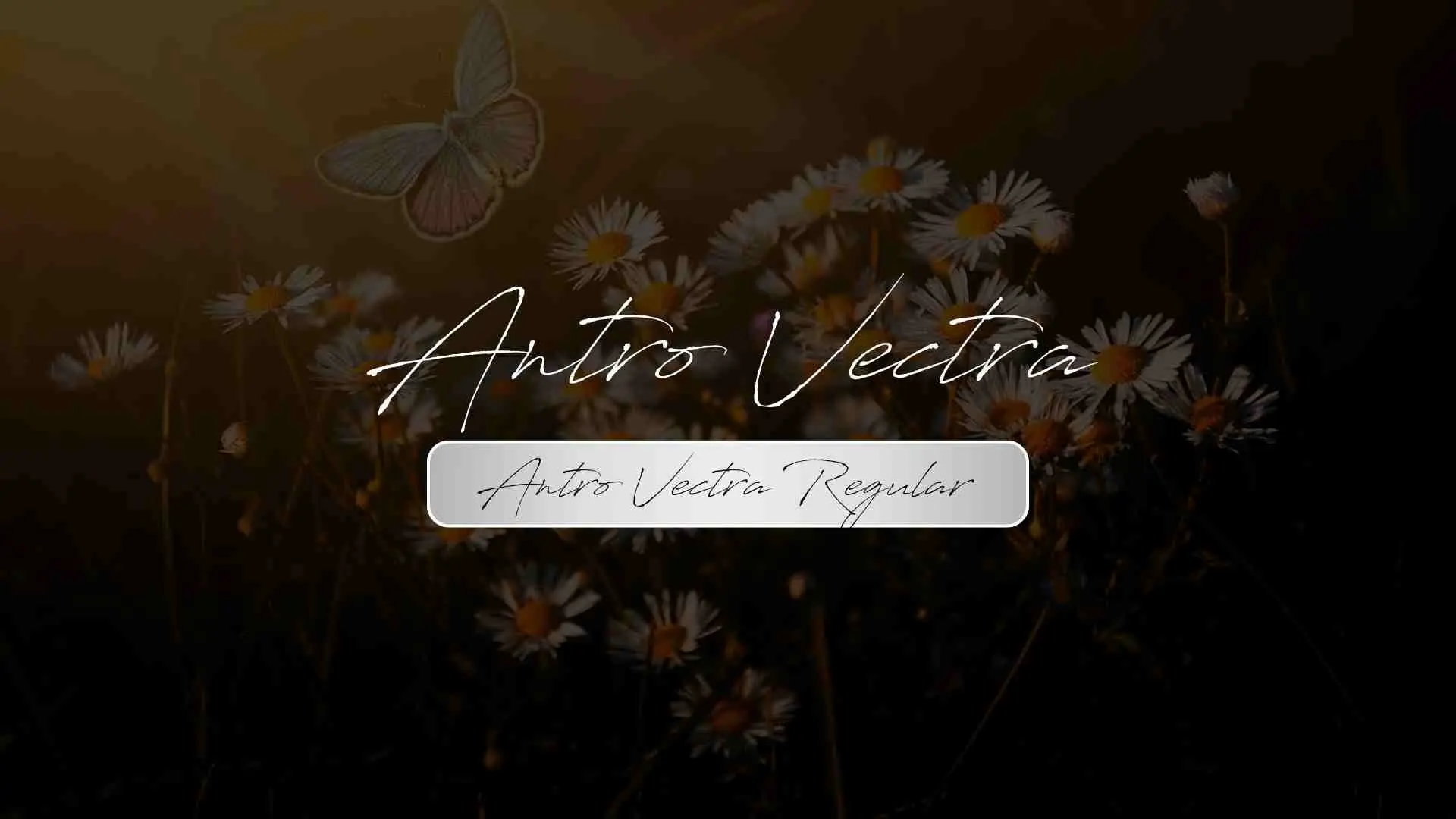
The font Antro Vectra Regular, designed by Youssef Habchi, falls under the Script category & Antro Vectra font family. Its smooth, flowing letterforms make it a versatile choice for projects that require both elegance and readability. Antro Vectra is particularly well-suited for Branding, Headlines, Titles, Creative Projects, Logos and Themed designs. With its balance of simplicity and decorative appeal, this font brings a polished touch to both personal and professional designs.